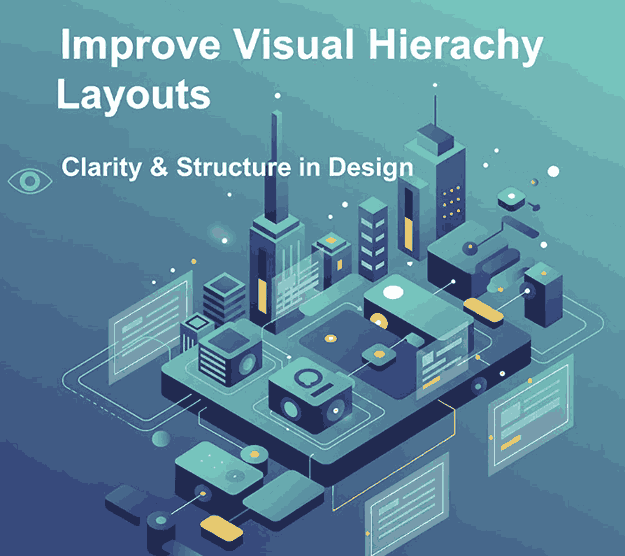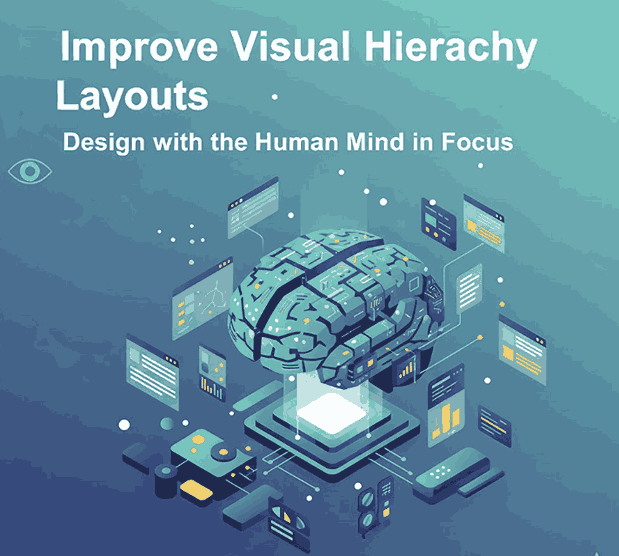
Improve Visual Hierarchy in Layouts: A Complete Guide to More Engaging New Design
1. Introduction
Improve Visual Hierarchy Layouts Creating an effective visual layout is more than arranging elements on a page — it’s about guiding the viewer’s eye. In the world of design, visual hierarchy determines what your audience sees first, next, and last.
A well-structured layout can make or break the user experience. Whether you’re designing a website, poster, or digital ad, understanding how to improve visual hierarchy in layouts helps you communicate messages clearly and beautifully.
Improve Visual Hierarchy Layouts
2. What Is Improve Visual Hierarchy Layouts in Design?
Visual hierarchy refers to how design elements are arranged to show their order of importance. It’s a fundamental principle that controls how viewers navigate your content.
Designers use size, color, contrast, spacing, and typography to establish hierarchy — ensuring that key information stands out and secondary details follow naturally.
3. Why Improve Visual Hierarchy Layouts Matters
Without visual hierarchy, even the most creative design can feel confusing. A strong hierarchy ensures that your message is clear and that viewers engage longer with your content.
Here’s why it matters:
• Clarity: Helps users quickly understand what’s most important.
• Aesthetics: Creates visual rhythm and flow.
• Engagement: Encourages viewers to explore more.
• Usability: Improves how users interact with designs in digital environments.
When hierarchy is properly established, your layout feels organized, intentional, and professional.
4. Key Principles of Improve Visual Hierarchy Layouts
4.1 Size and Scale
Bigger elements attract attention first. Use larger fonts or images to highlight your main message. Scale smaller elements accordingly to guide the viewer’s eye downward through the content.
4.2 Color and Contrast
Contrast draws focus. Bright or dark colors against neutral backgrounds make key elements stand out. Strategic use of color contrast enhances both readability and emotion.
4.3 Typography and Font Choice
Typography plays a powerful role in hierarchy. Headings, subheadings, and body text should have different font weights and styles to establish structure.
Using elegant calligraphy or clean serif fonts can create emotional tone and brand character.
4.4 Spacing and Alignment
White space gives elements room to breathe. Balanced spacing prevents clutter and directs focus naturally. Alignment ensures consistency — whether center-aligned for balance or left-aligned for readability.
5. How to Improve Visual Hierarchy Layouts
Improving hierarchy is about clarity and intention. Here are proven methods to achieve it:
• Start with structure: Sketch or wireframe your layout before adding details.
• Highlight the focal point: Use scale, bold color, or a striking font for the most important element.
• Group related items: Proximity indicates relationship — place related elements closer together.
• Limit font styles: Too many fonts can break hierarchy; two to three styles are ideal.
• Use visual rhythm: Alternate heavy and light design areas to create a smooth viewing flow.
By applying these techniques, you’ll guide your audience effortlessly through your design story.
6. Using Typography to Strengthen Design Hierarchy
Typography doesn’t just display text — it shapes perception. Fonts have distinct personalities that can elevate the tone and emotion of your design.
For example:
• A bold modern font grabs attention for headlines.
• A calligraphy or script font adds elegance and warmth.
• A minimal serif or sans-serif font ensures readability for long text.
Selecting the right type hierarchy — combining contrasting weights, sizes, and styles — creates a polished, professional appearance.
If you want to achieve balance between beauty and functionality, using premium fonts is the key.
7. Recommended Fonts from CalligraphyFonts.net
At CalligraphyFonts.net, we specialize in handcrafted typefaces designed for creative professionals. Here are some recommended fonts to enhance visual hierarchy in your layouts:
• Butterlies Font – A stylish modern calligraphy font that works perfectly for bold headlines or hero text sections.
• Rutinitas Font – Soft and elegant, great for subheadings or secondary content that needs personality without overpowering.
Combine layout structure with typographic precision and you’ll achieve designs that not only look great but communicate effectively.